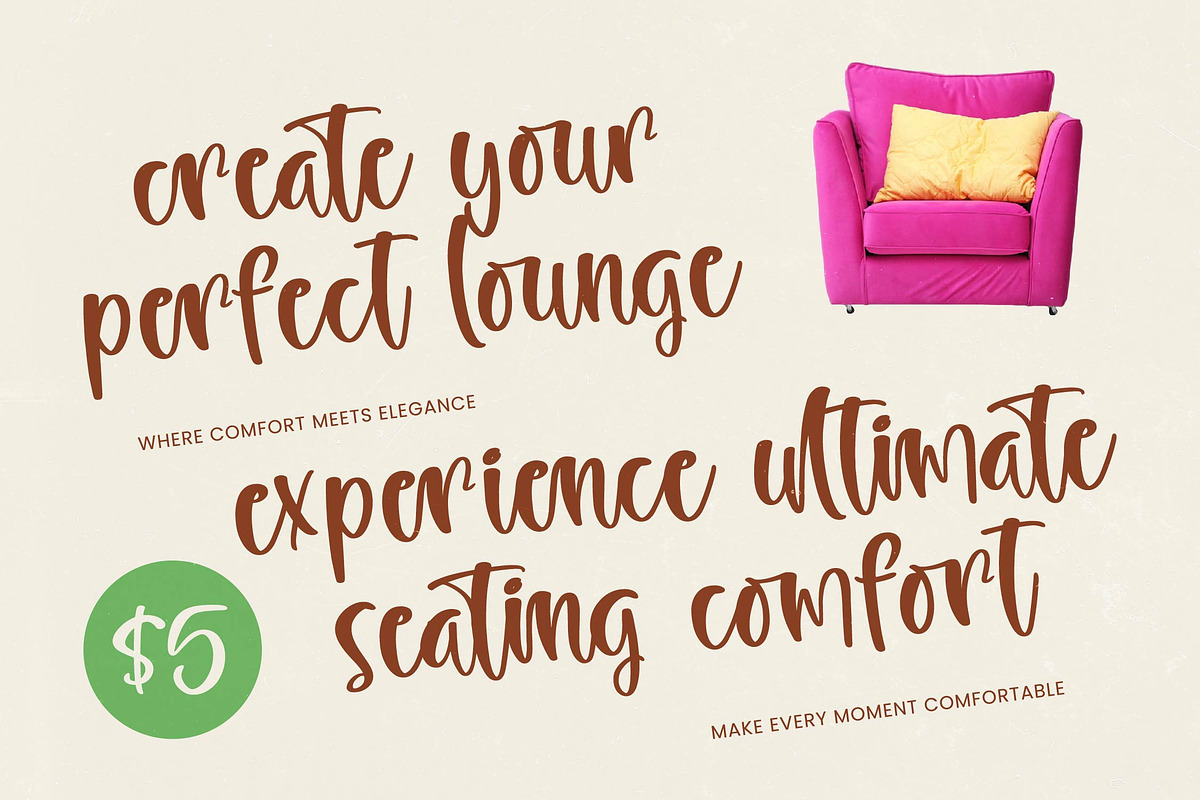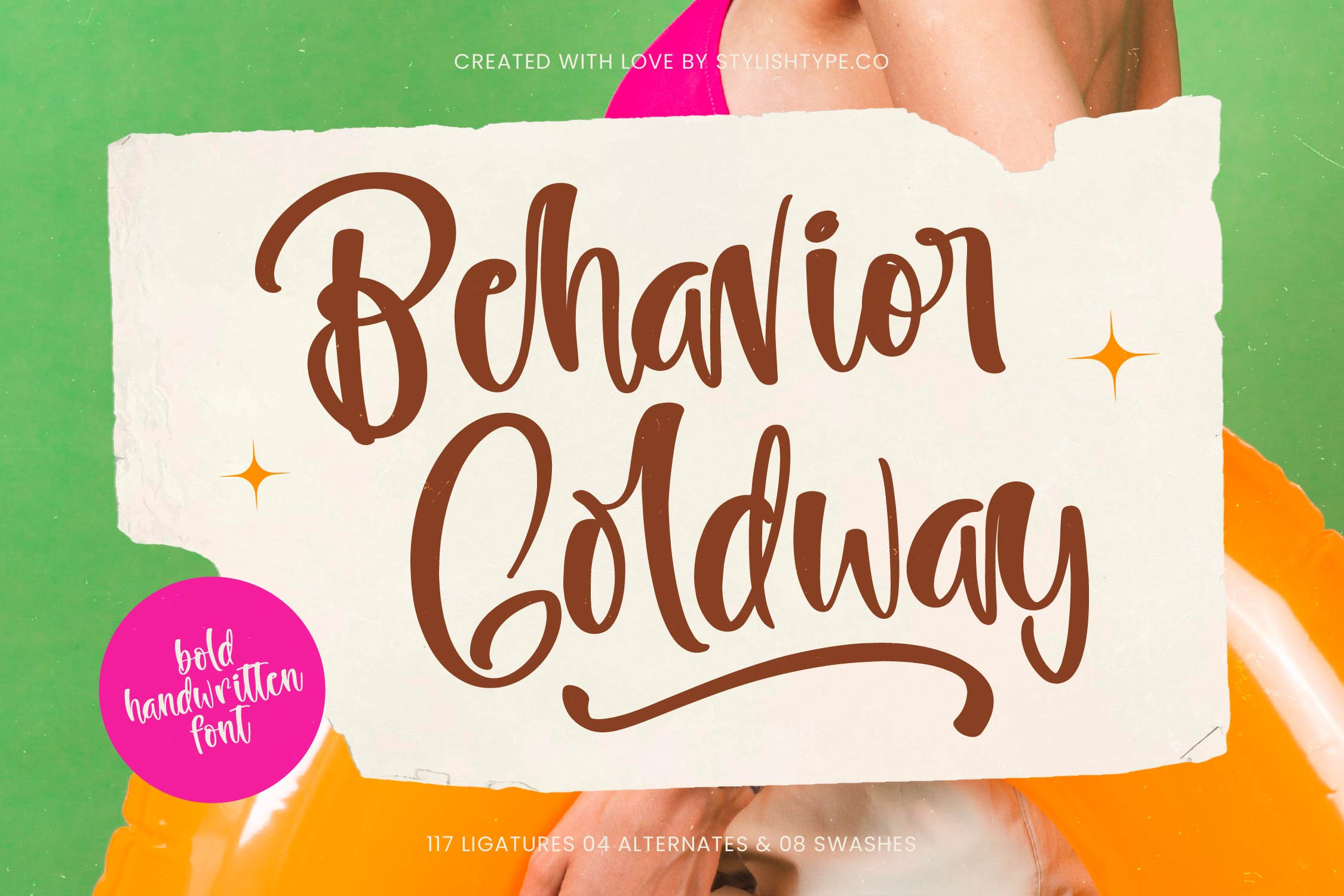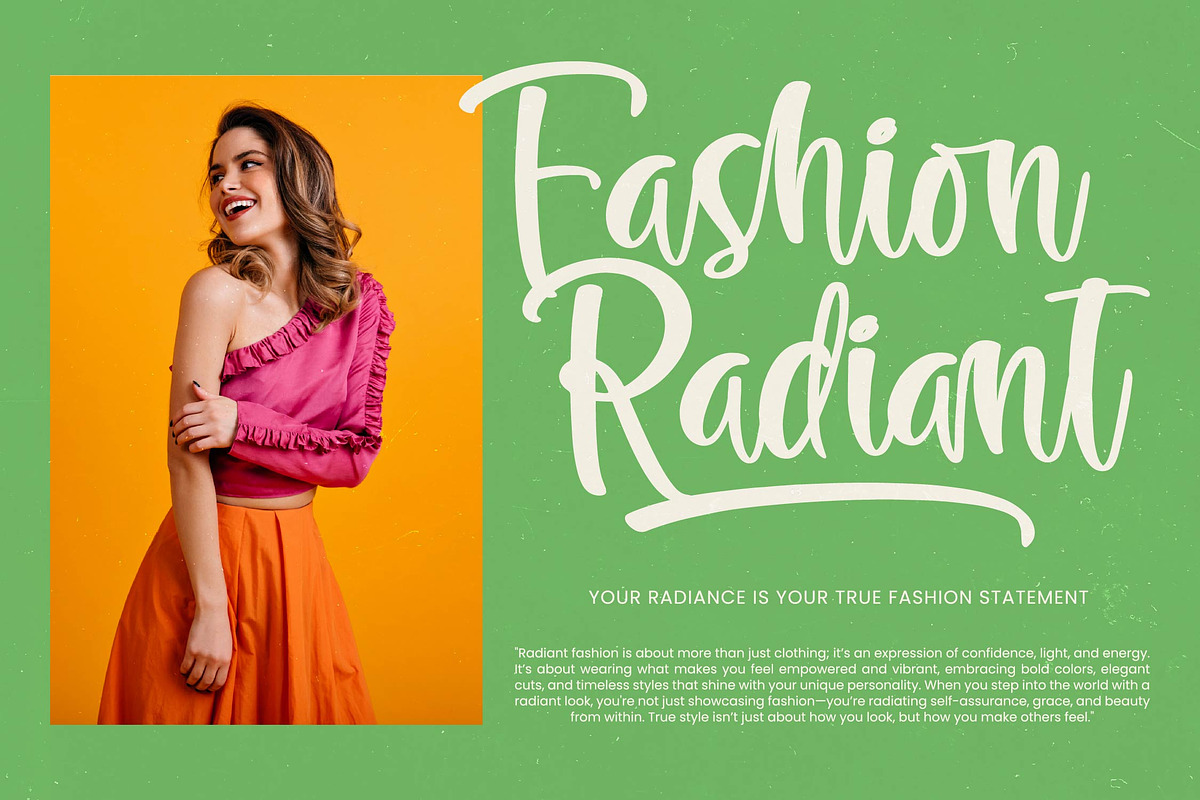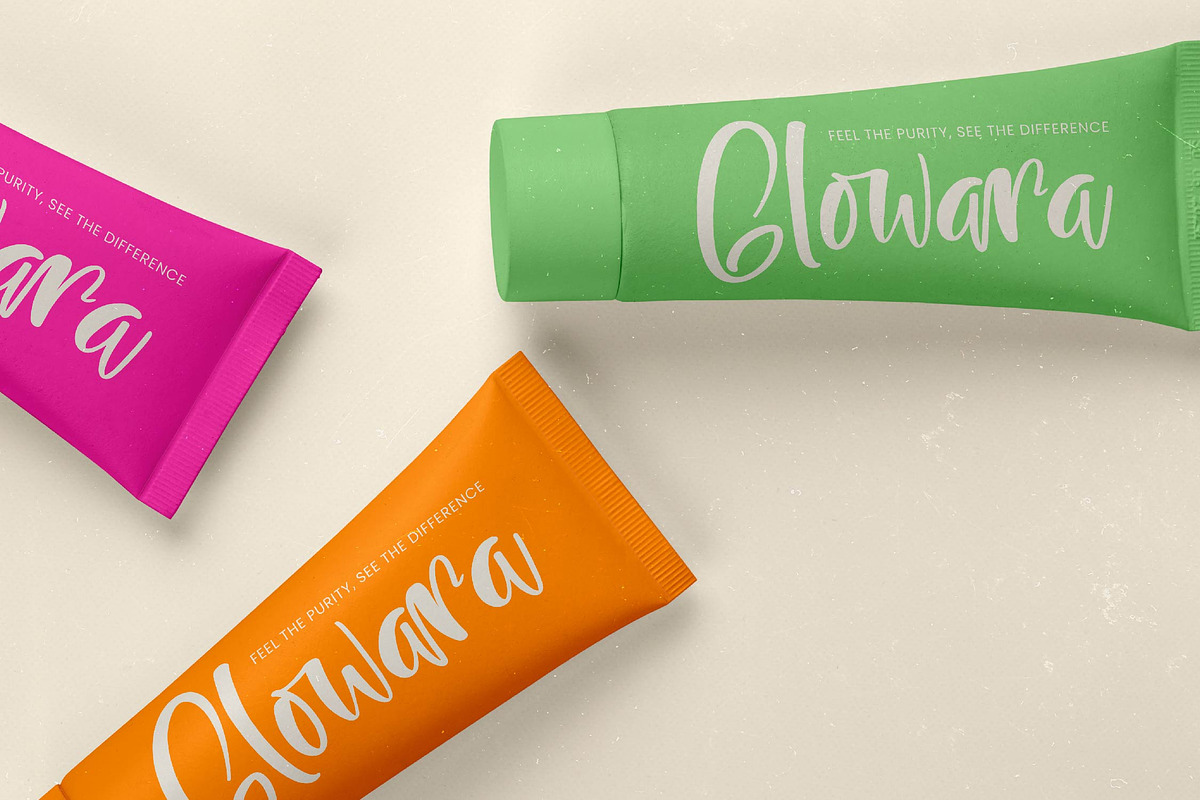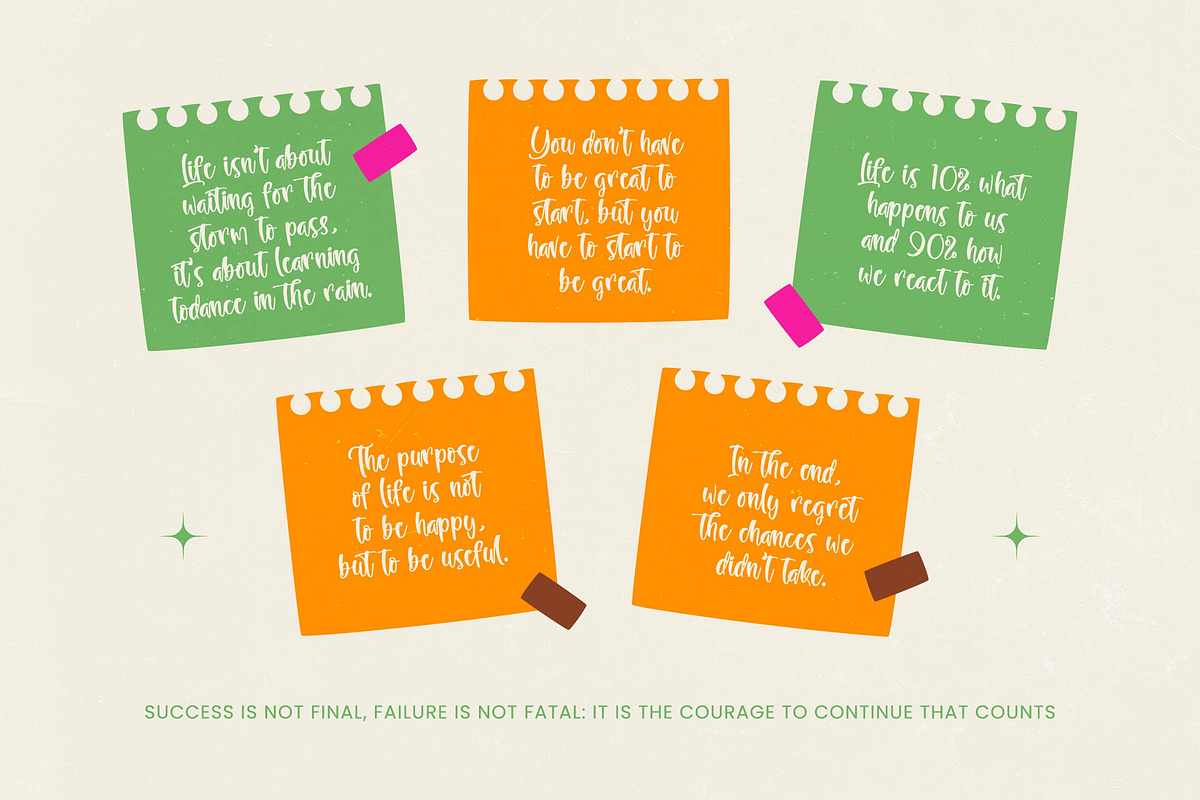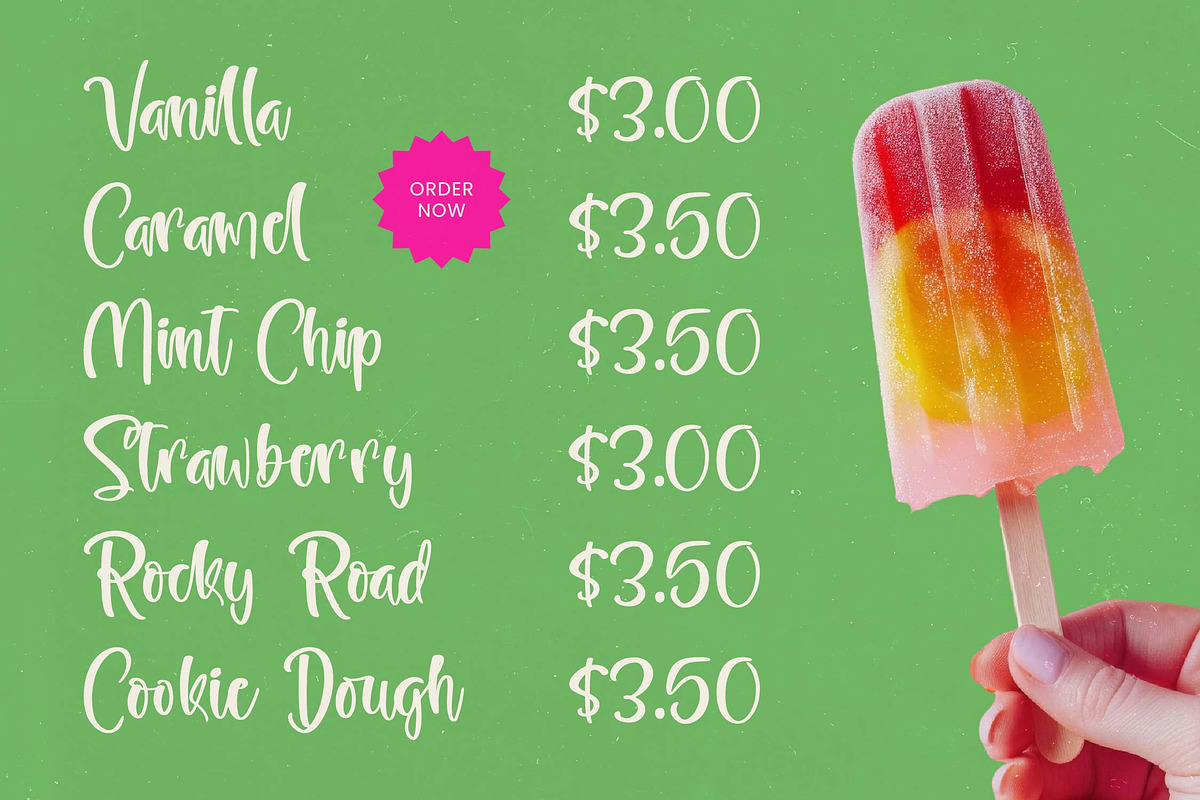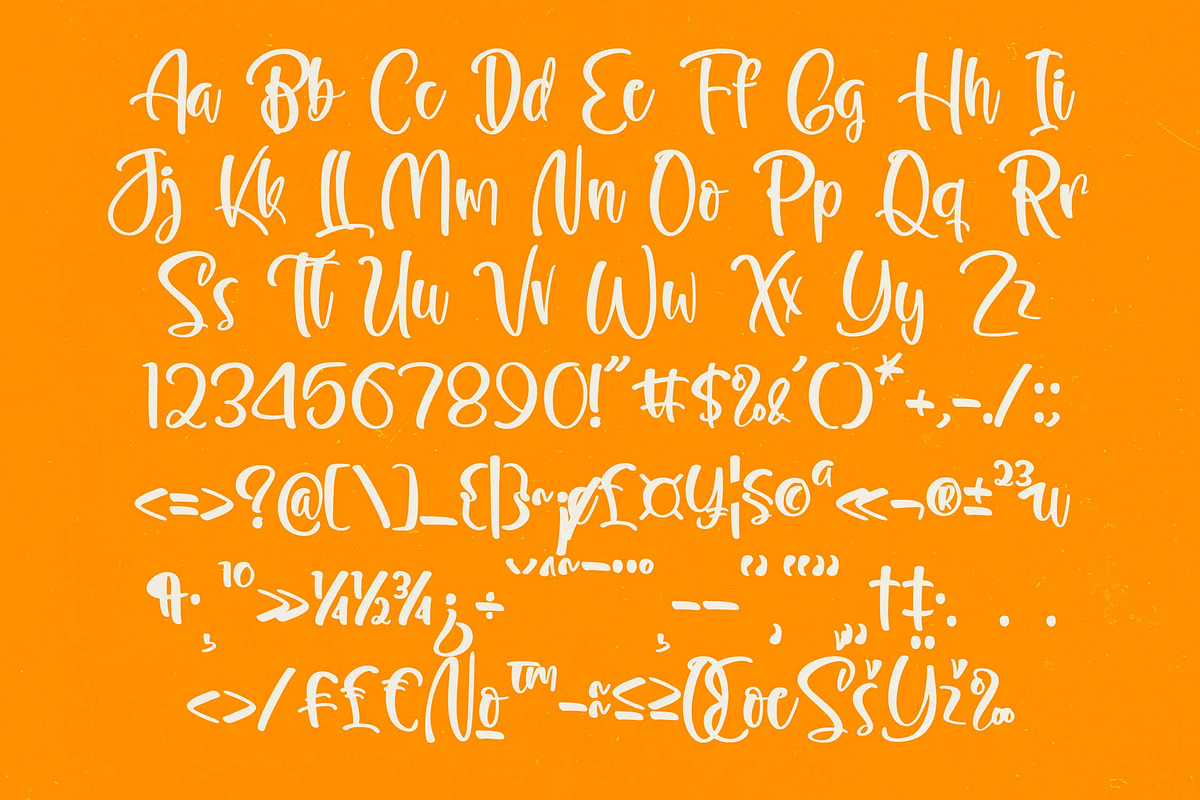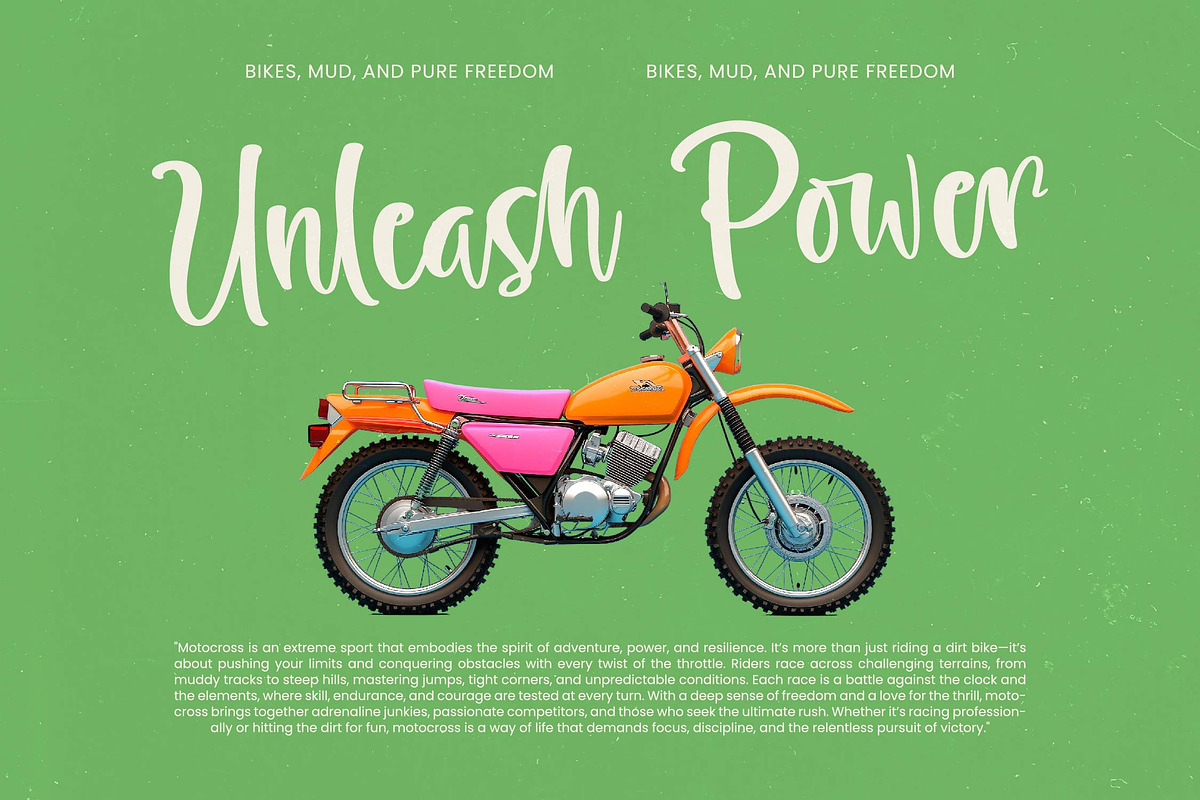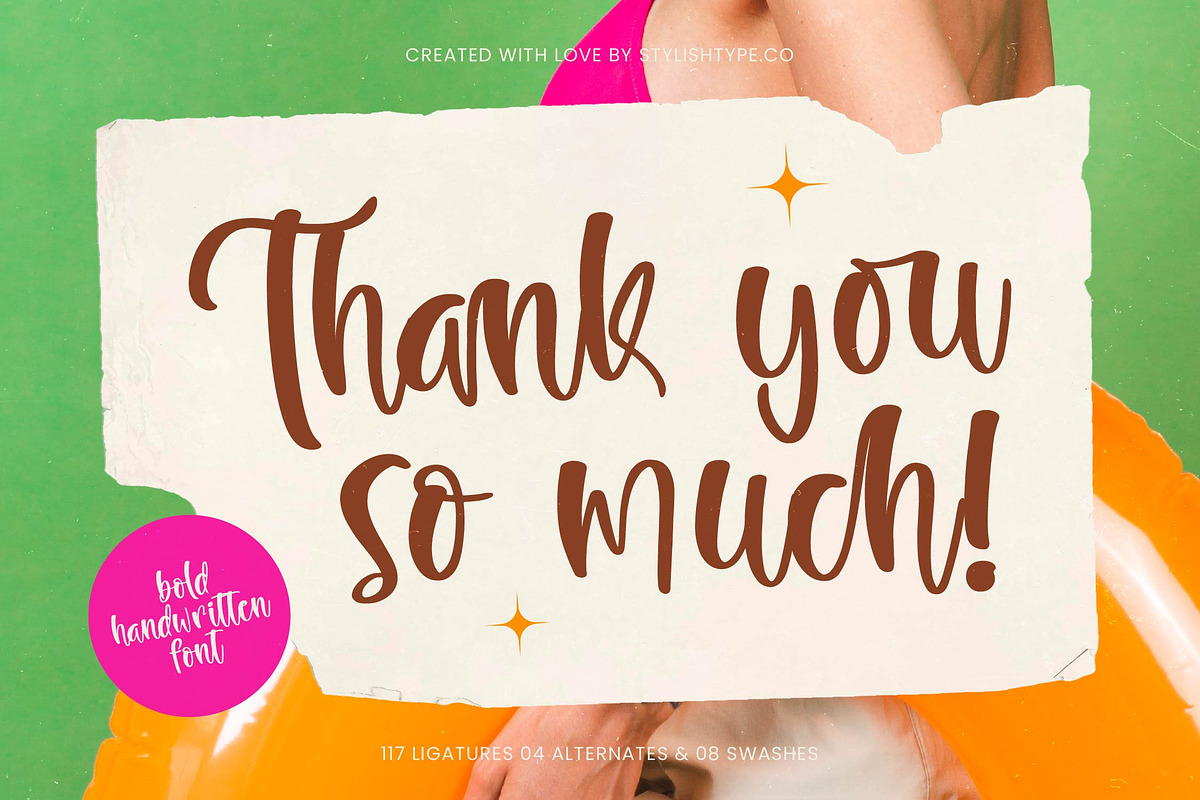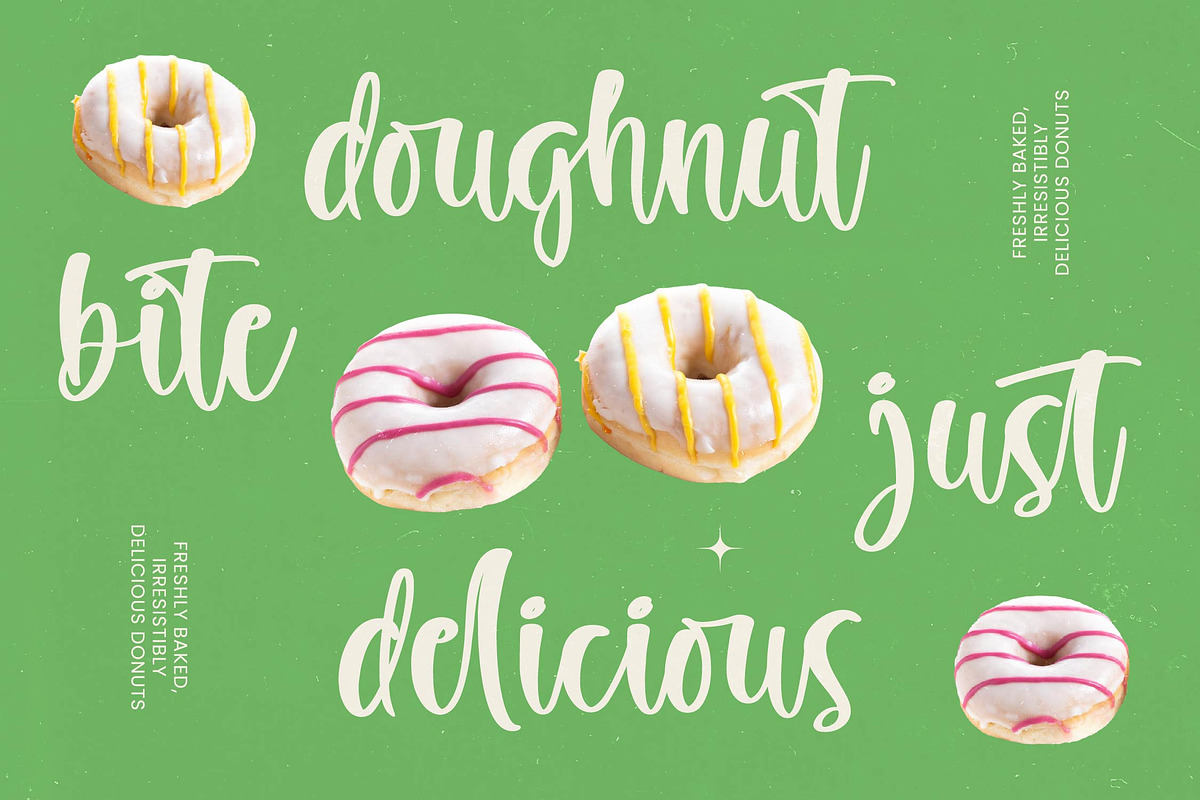
Behavior Goldway Bold Hand Font
Behavior Goldway - Bold Handwritten Font , Experience the vibrant energy and effortless flow of Behavior Goldway, a font designed to make your creative visions pop with personality. This bold handwritten masterpiece transforms ordinary text into a striking visual statement that captures attention instantly.
Inspired by the fluid movements of a master calligrapher’s brush and the carefree spirit of summer adventures, this typeface carries a rhythmic soul. It evokes the feeling of hand-painted signage on a sun-drenched beach club, blending organic textures with a modern, polished finish.
While it breaks away from the traditional modern serif display, it brings a unique luxury typography feel to the world of script fonts. It offers a high-contrast serif alternative for those seeking a more personal touch, serving as the ultimate editorial font for projects requiring a significant branding impact.
Staying ahead of the modern serif trend, this typeface leans into the current demand for editorial display fonts that feel human and authentic. It perfectly aligns with the rise of character-driven typography, allowing designers to bypass generic styles in favor of something truly bespoke and expressive.
This versatile script is the perfect choice for high-end logo design and comprehensive branding identity packages. From fashion editorial layouts and product packaging to whimsical wedding invitations and high-street fashion lookbooks, it adapts to any medium with grace.
The package is loaded with technical depth, featuring 117 ligatures and 04 unique alternates to ensure a natural hand-drawn look. Enhance your designs with 08 decorative swashes and enjoy full multilingual support including all essential international characters for global reach.